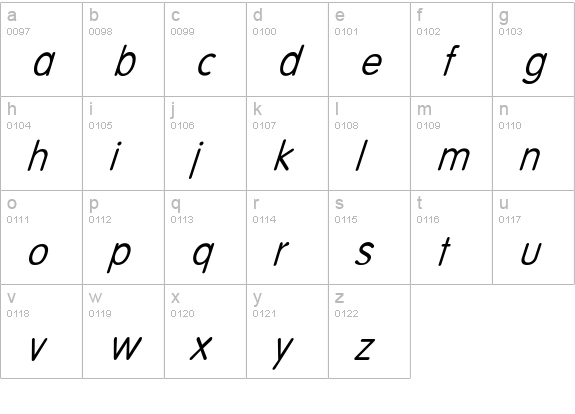
Volte-Italic Font Details
Volte-Italic is a distinctive, italic variant in the Volte typeface family \xE2\x80\x94 well suited to design and typography projects.
Introducing Volte-Italic, a sleek and stylish font that effortlessly combines elegance with modernity. With its flowing lines and slight slant, this italic typeface adds a touch of sophistication to any design project. Whether you're creating captivating headlines, eye-catching logos, or stylish branding materials, Volte-Italic is the perfect choice to make a lasting impression. This font's versatility knows no bounds - it effortlessly adapts to various design styles and themes. Its graceful curves and subtle variations in stroke width create a harmonious balance, making it equally suitable for both formal and informal projects. From fashion magazines to wedding invitations, product packaging to website headers, Volte-Italic adds an air of sophistication and refinement. What sets Volte-Italic apart is not only its stunning aesthetics but also its accessibility. We believe that great design should be freely available to all, and that's why we are thrilled to announce that Volte-Italic can be downloaded for free at FontsMarket.com. This means that designers, creatives, and enthusiasts alike can easily incorporate this beautiful typeface into their projects without any financial constraints. The impeccable craftsmanship of Volte-Italic ensures that it looks stunning at any size, retaining its clarity and legibility even in small print. Its subtle italicized slant adds a touch of dynamism and modernity, elevating the overall visual experience. With a wide range of characters, including uppercase and lowercase letters, numbers, punctuation marks, and special glyphs, Volte-Italic provides endless possibilities for creative expression. Whether you're a seasoned designer or just starting your creative journey, Volte-Italic is a must-have addition to your font library. Its timeless elegance and versatile nature make it the perfect companion for any design project. Download Volte-Italic for free today at FontsMarket.com and unlock a world of creative possibilities.